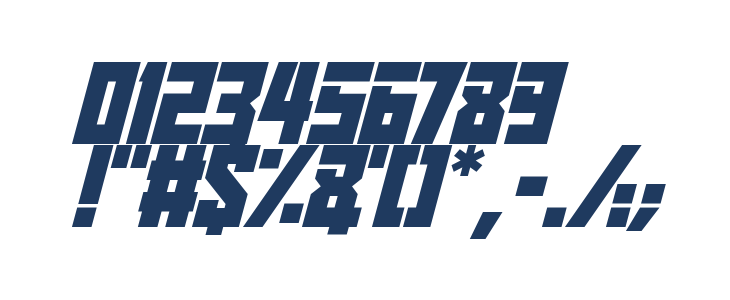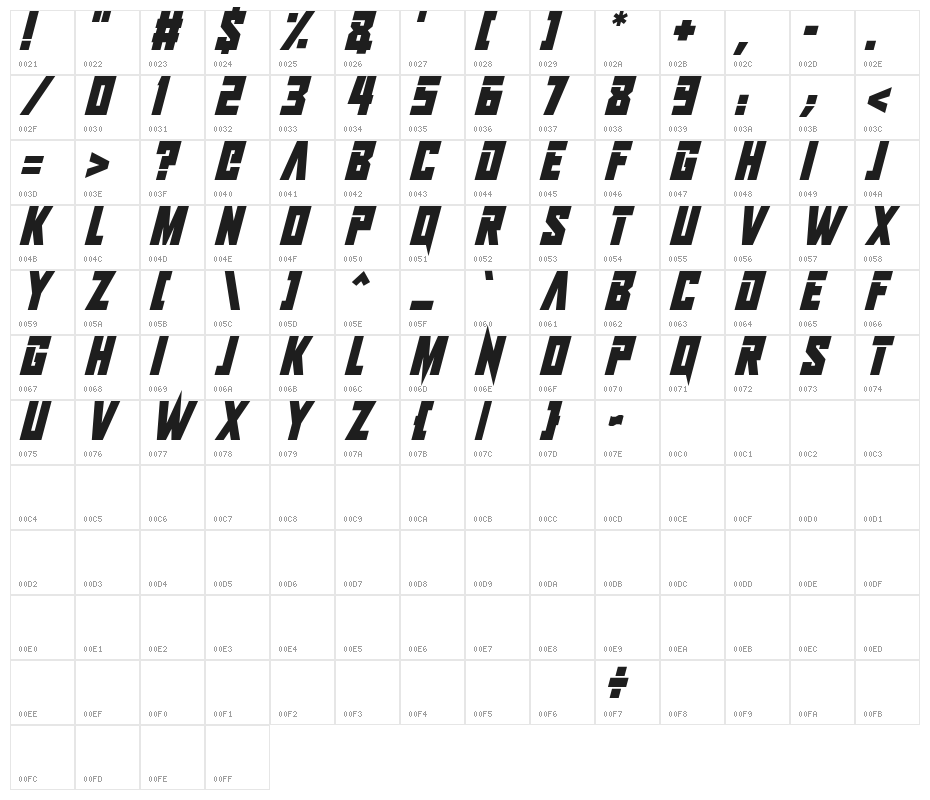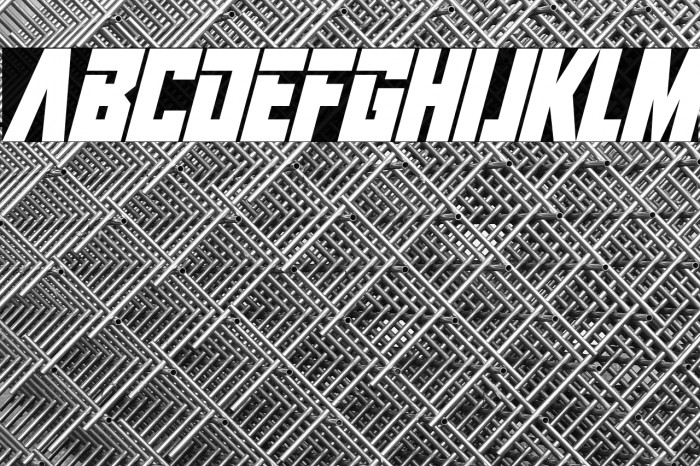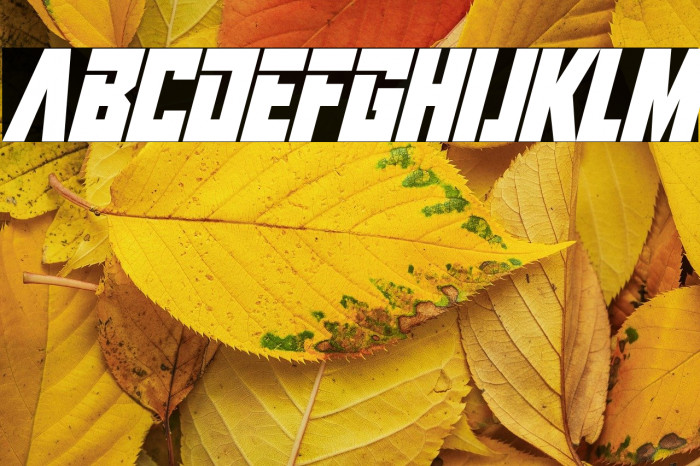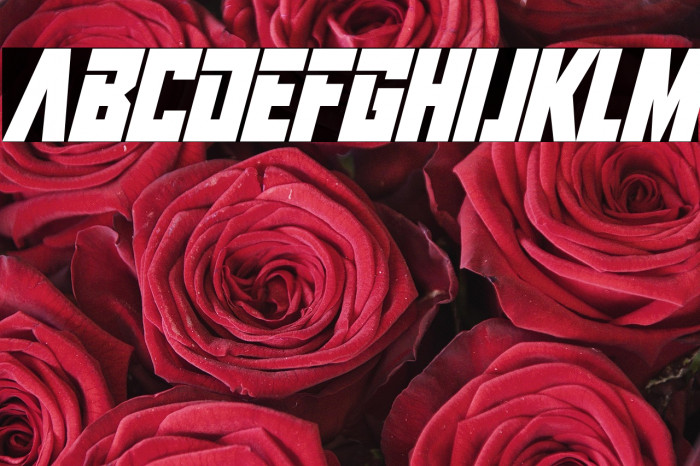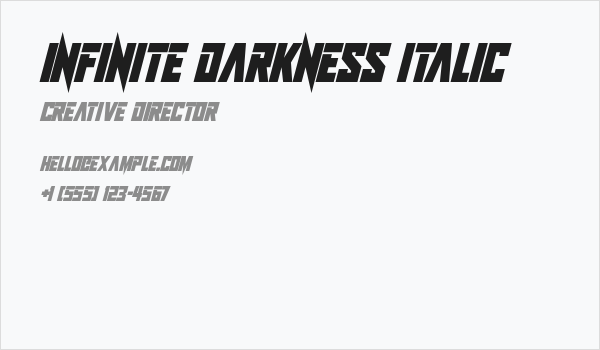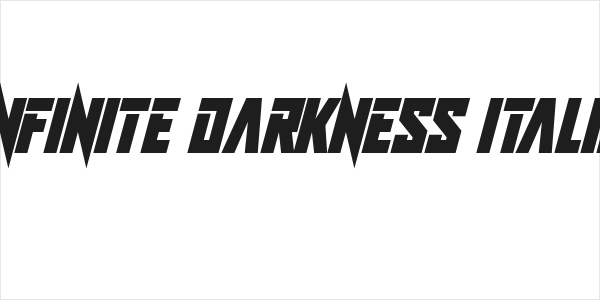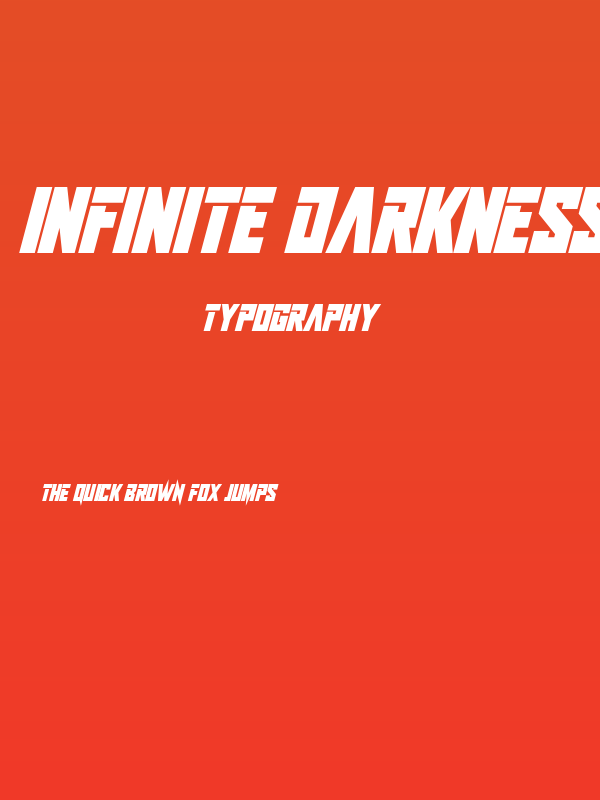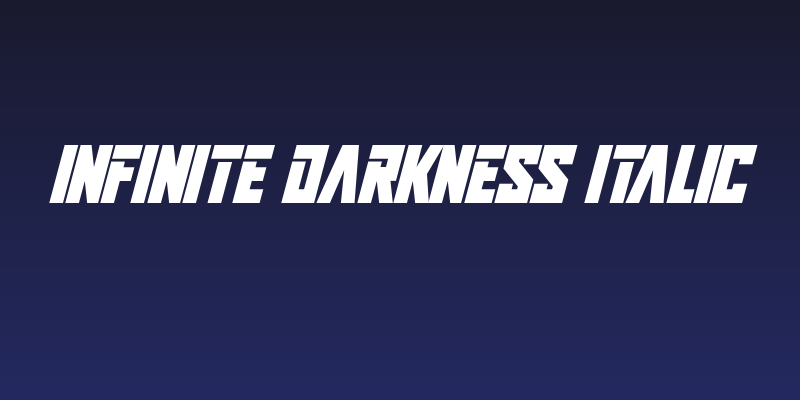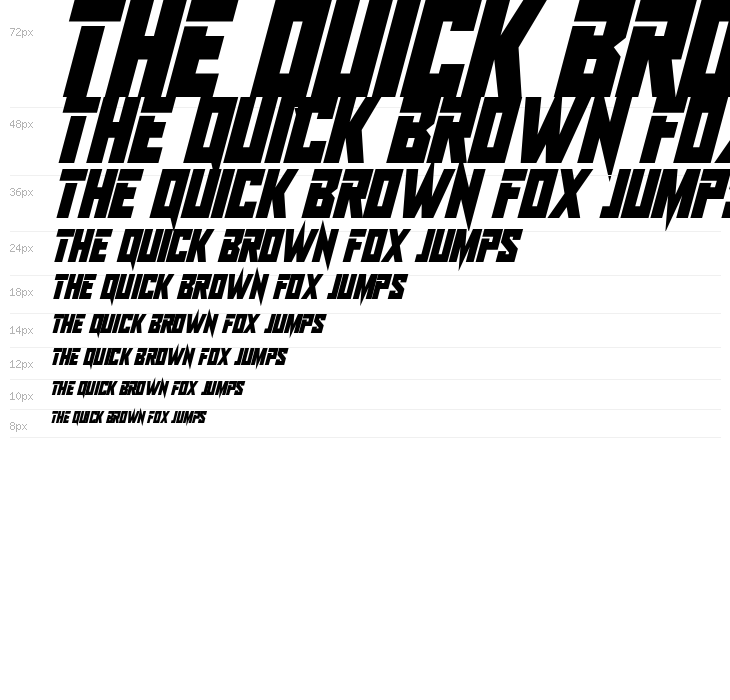
Infinite Darkness Italic Font
Infinite Darkness Italic Description
This font features a bold, angular design with a futuristic and aggressive aesthetic. The characters are sharply defined with a distinct slant, giving them a dynamic and forward-moving appearance. The uppercase and lowercase letters share a consistent style, emphasizing sharp edges and geometric shapes. Numbers and special characters maintain the same bold and angular characteristics, ensuring uniformity across all glyphs. The font's design is striking and attention-grabbing, making it ideal for projects that require a strong visual impact.
| Overall Style | Futuristic, Aggressive |
| Proposed Projects | Ideal for video game titles, sci-fi movie posters, sports team logos, and any project requiring a bold, dynamic look. |